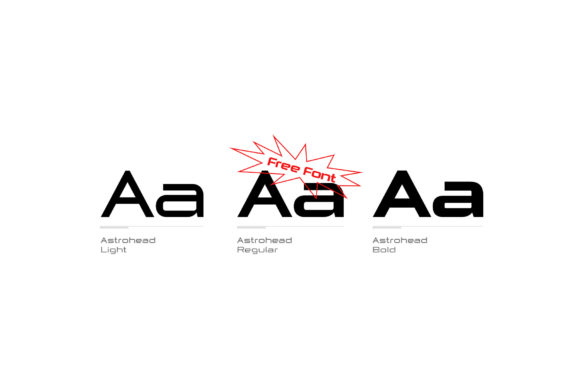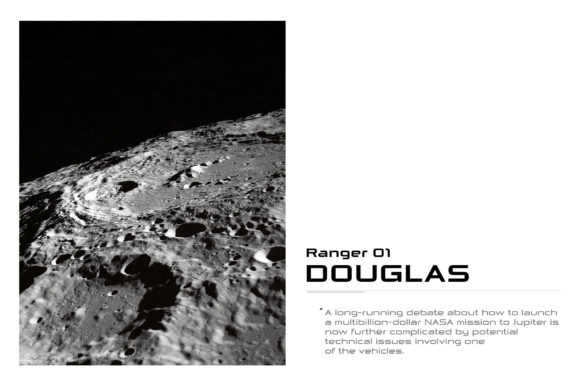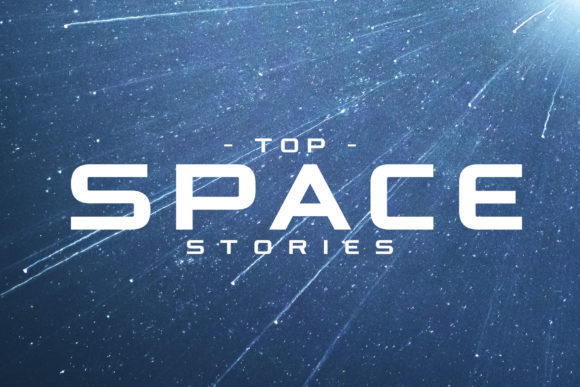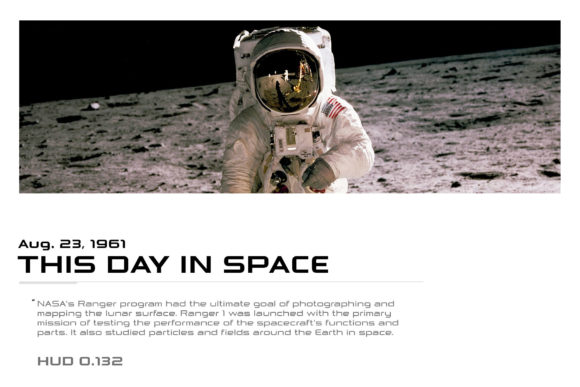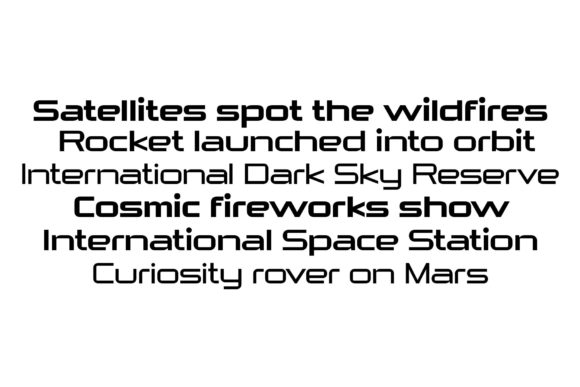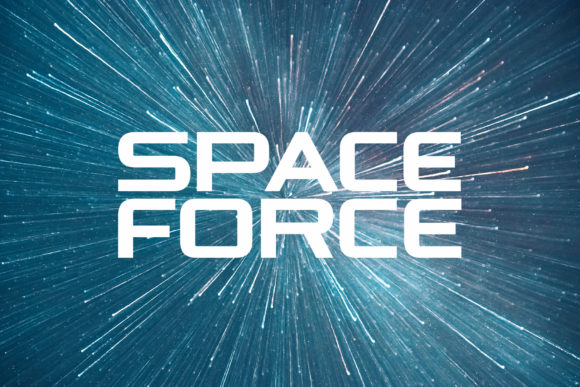
Astrohead Font: Elevate Your Designs with a Modern and Minimal Display Font
Are you tired of using the same old fonts in your designs? Look no further than Astrohead Font, a modern and minimal display font that’s perfect for designers and crafters looking to add a touch of sophistication to their projects. With its simple yet stylish design, Astrohead Font is adaptable to a wide spectrum of design ideas, making it a versatile addition to your font collection.
The Simplicity of Astrohead Font
One of the standout features of Astrohead Font is its simplicity. This font is designed to be clean and uncluttered, making it easy to read and versatile enough to use in a variety of design contexts. Whether you’re creating a logo, a headline, or a body of text, Astrohead Font is a great choice. Its simple style also makes it an excellent option for designers who want to create a modern and sleek look without overwhelming their audience.
Adaptability is Key
Another significant advantage of Astrohead Font is its adaptability. This font can be used in a wide range of design projects, from branding and advertising to packaging and digital media. Whether you’re working on a minimalist design or a more complex project, Astrohead Font can be easily integrated to add a touch of elegance and sophistication. Its versatility also makes it an excellent choice for designers who work on multiple projects with different styles and themes.
Why Designers and Crafters Love Astrohead Font
So, why do designers and crafters love Astrohead Font? For starters, its modern and minimal design makes it a great choice for anyone looking to create a contemporary look. Additionally, its simplicity and adaptability make it easy to use in a variety of design contexts. Here are just a few reasons why Astrohead Font has become a favorite among designers and crafters:
- Easy to read: Astrohead Font is designed to be easy to read, making it perfect for body text, headlines, and more.
- Versatile: This font can be used in a wide range of design projects, from branding and advertising to packaging and digital media.
- Modern and sleek: Astrohead Font’s simple yet stylish design makes it perfect for designers who want to create a modern and sleek look.
- High-quality: This font is designed to be high-quality, with clean lines and a professional finish.
How to Use Astrohead Font in Your Designs
Using Astrohead Font in your designs is easy. Here are a few tips to get you started:
- Pair it with other fonts: Astrohead Font pairs well with other fonts, making it easy to create a unique and visually appealing design.
- Experiment with different sizes: This font looks great in a variety of sizes, from small body text to large headlines.
- Use it for branding: Astrohead Font is perfect for branding projects, such as logos, business cards, and letterheads.
- Add a pop of color: This font looks great in a variety of colors, so don’t be afraid to add a pop of color to your design.
In conclusion, Astrohead Font is a modern and minimal display font that’s perfect for designers and crafters looking to add a touch of sophistication to their projects. With its simple yet stylish design, adaptability, and high-quality finish, Astrohead Font is a versatile addition to any font collection. Whether you’re working on a branding project, a digital design, or a craft project, Astrohead Font is a great choice. So why not give it a try and see the amazing results for yourself?
With Astrohead Font, you can:
- Create stunning designs with a modern and sleek look
- Add a touch of sophistication to your projects
- Experiment with different design ideas and styles
- Elevate your brand with a high-quality font
So, add Astrohead Font to your projects confidently, and you will be incredibly fond of the results. Its simplicity, adaptability, and high-quality design make it an excellent choice for designers and crafters looking to create amazing designs.